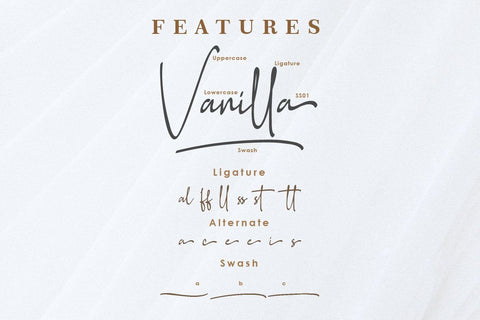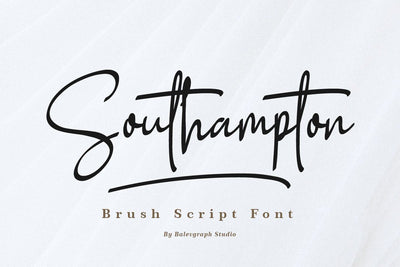
Southampton Script Font
Southampton is a casual handwritten font. Fall in love with it and bring your projects to the highest levels!
This font is PUA encoded which means you can access all of the glyphs and swashes with ease!
- Uppercase, Lowercase, Numerals & Punctuations
- Ligature & Alternate
- Multilingual support
- PUA Encoded